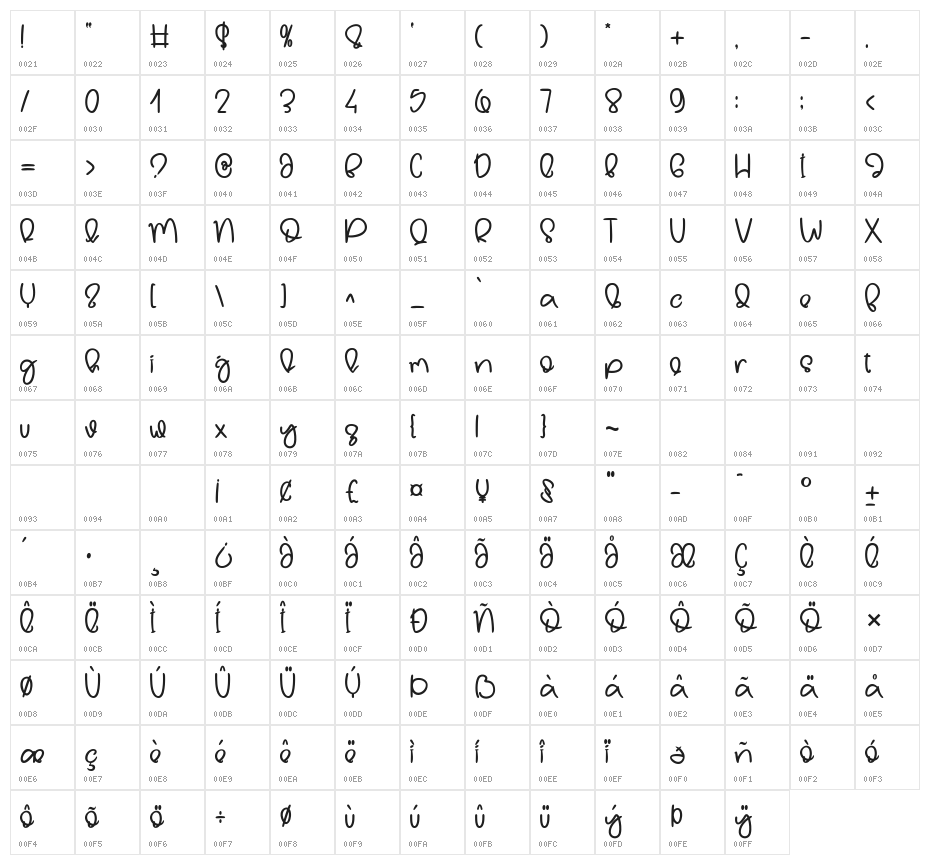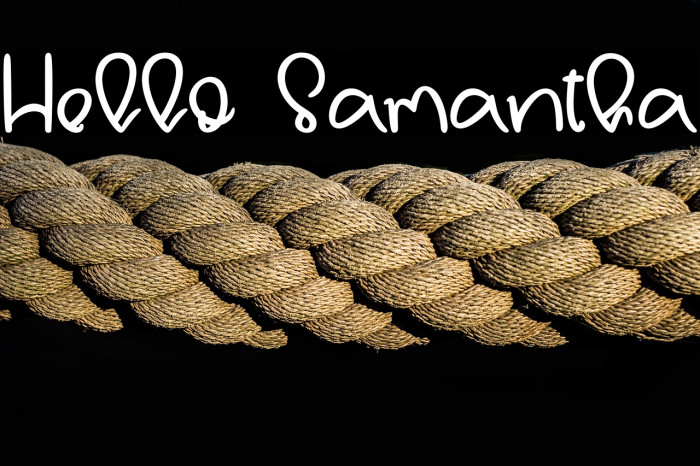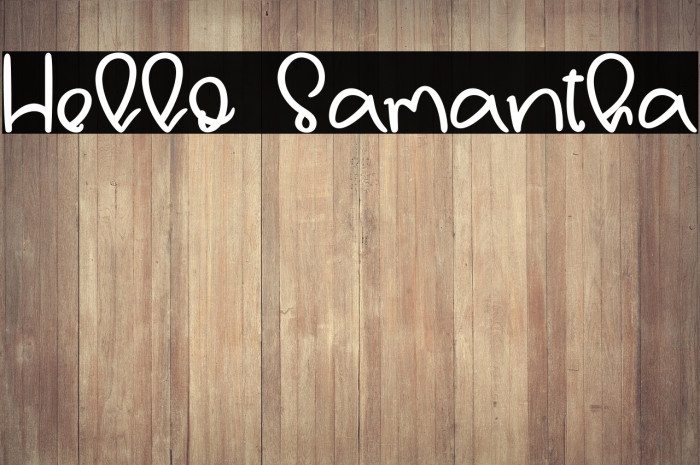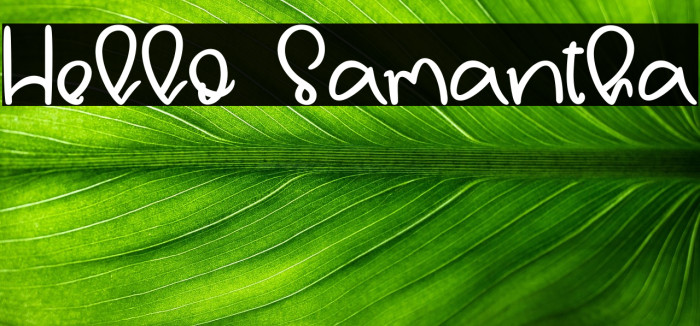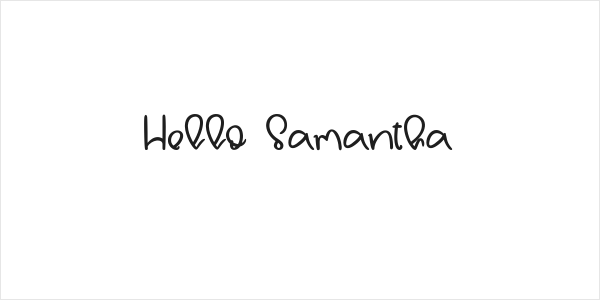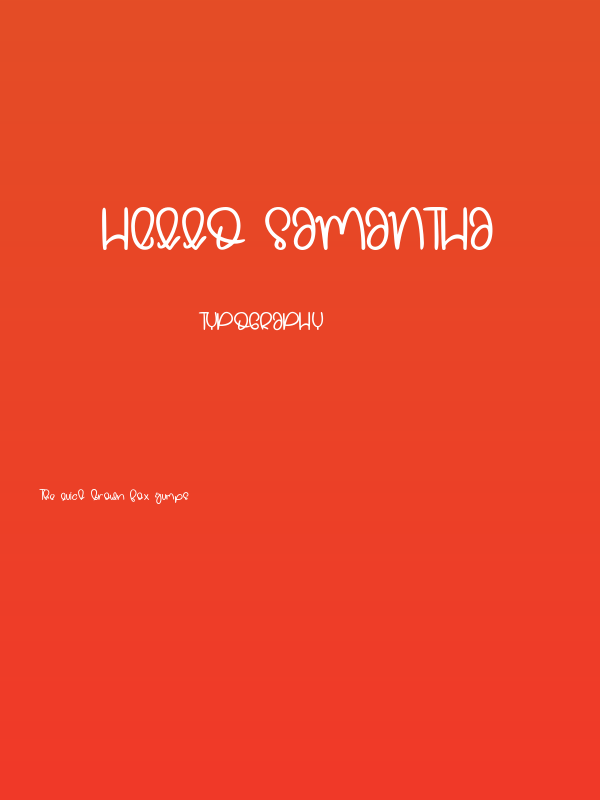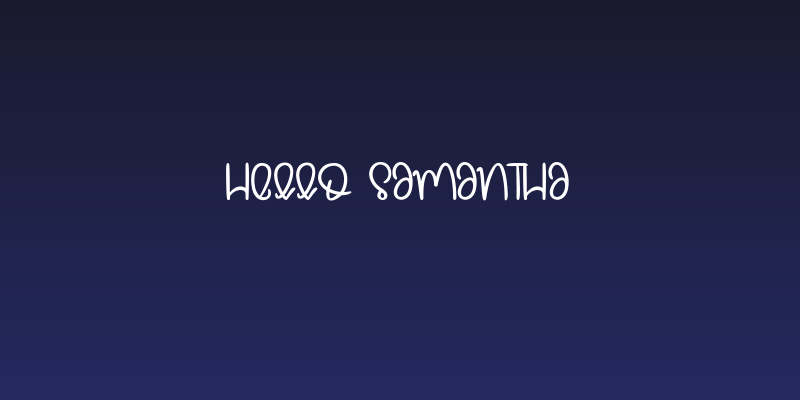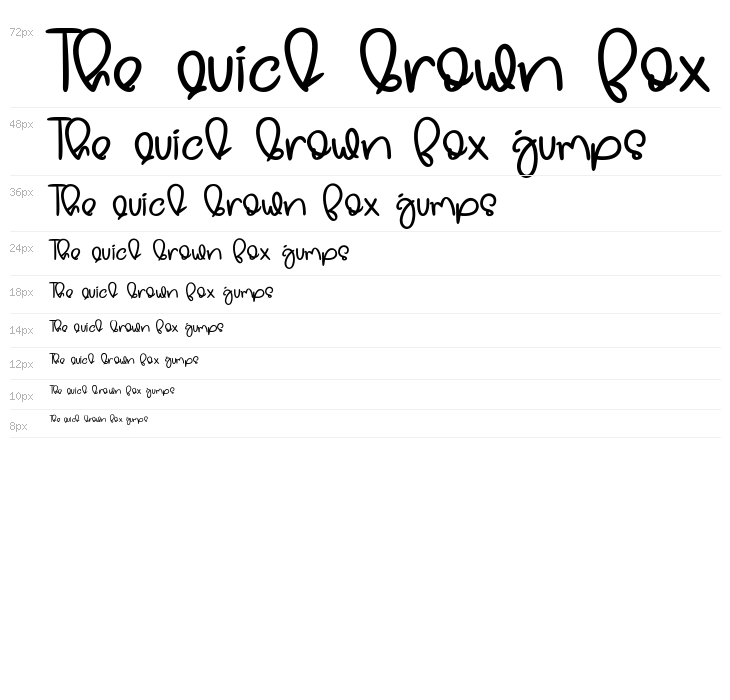
Hello Samantha Font
Hello Samantha Description
This playful and whimsical font features a handwritten style with smooth, flowing curves and a casual, friendly appearance. The characters are slightly slanted, giving them a dynamic and lively feel. The uppercase and lowercase letters maintain a consistent style, with rounded edges and a uniform stroke width that adds to the font's approachable nature. The numbers and special characters are designed to match the overall aesthetic, ensuring a cohesive look across all text elements. This font's unique personality makes it ideal for projects that require a touch of creativity and informality.
| Use Case | Logos, Headlines, Informal text |
| Proposed Projects | Greeting cards, children's books, playful branding, social media graphics. |